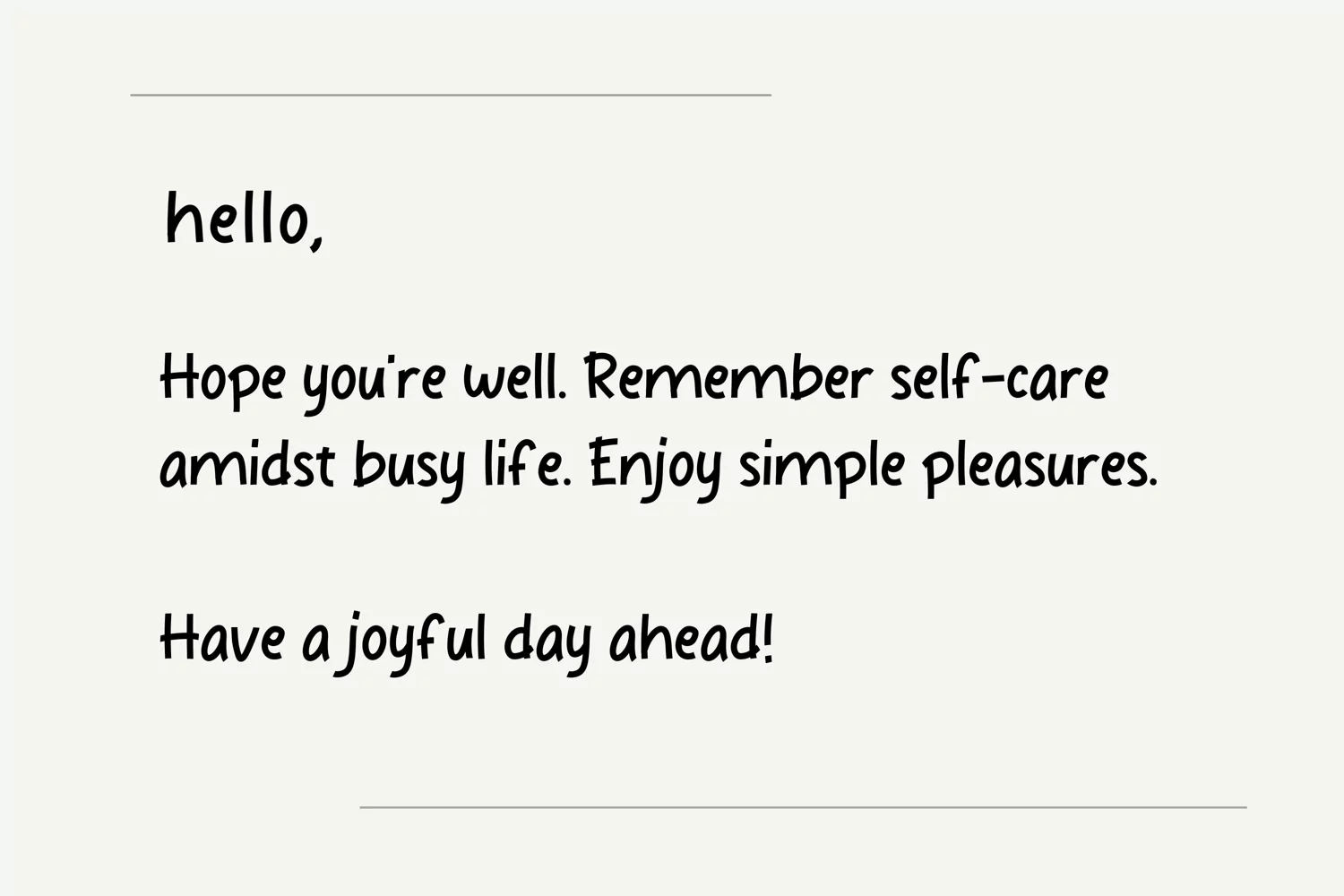
Introducing Matilda Whisper, an effortlessly adorable handwriting font that blends the casual appeal with an elegant touch. This charming font makes long texts a joy to read, enhancing readability while infusing every word with personality. An ideal choice for those seeking to break free from conventional fonts and looking to add a hint of whimsy to their text. Matilda Whisper, where elegance meets playfulness in the world of typography.